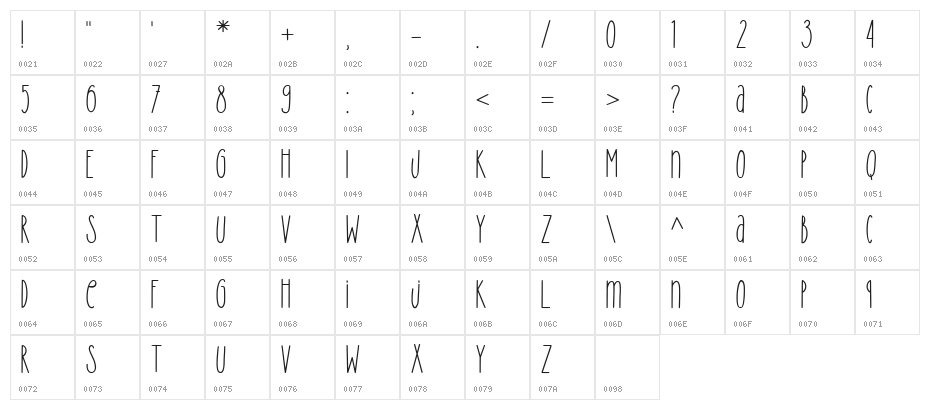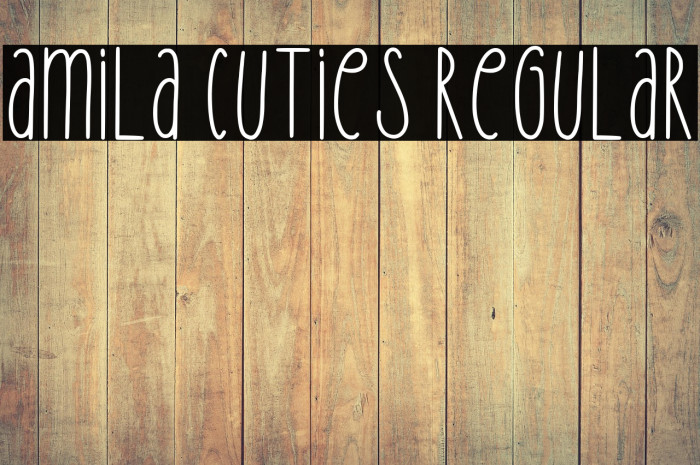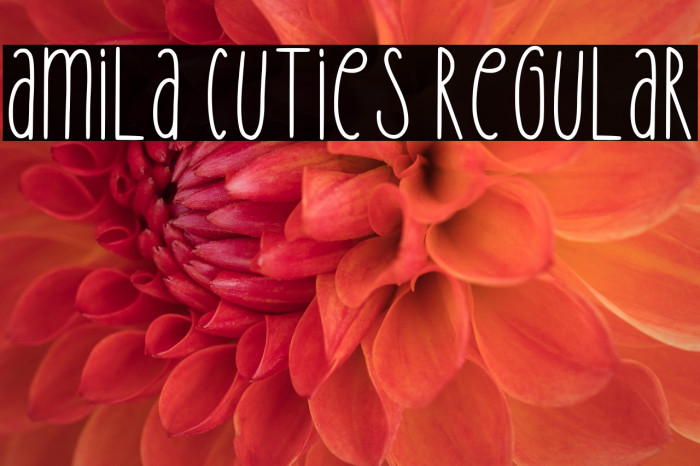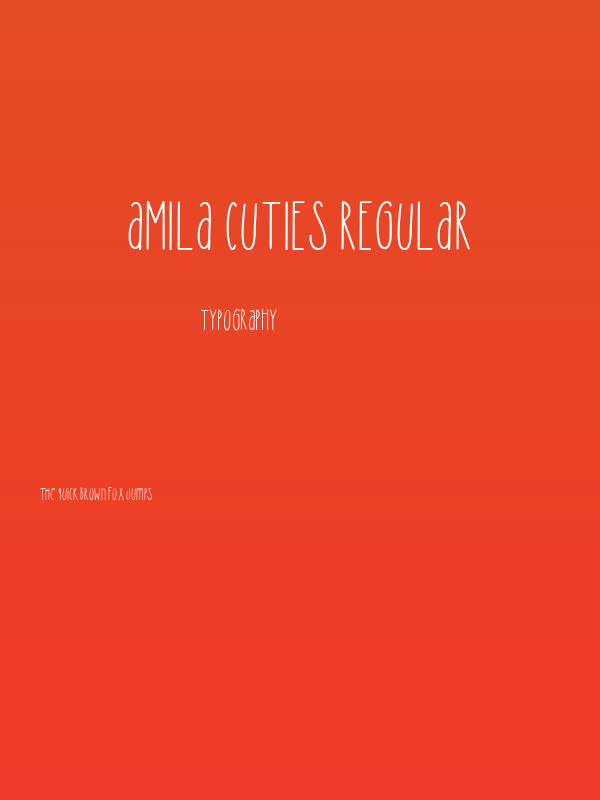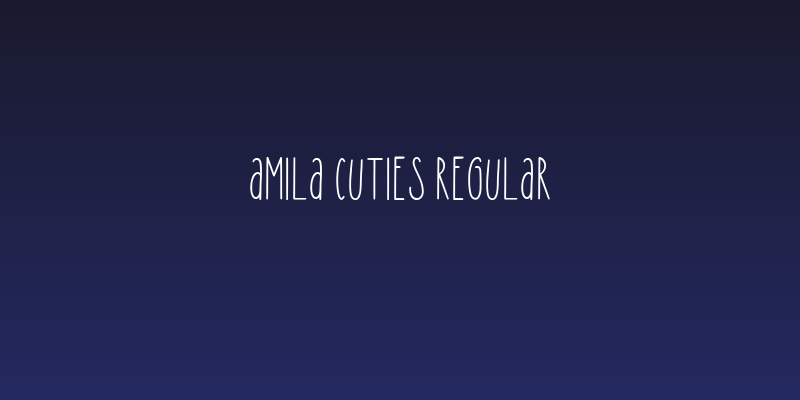
Amila Cuties Regular Font
Amila Cuties Regular Description
A playful, handwritten font with tall, narrow letters and a casual style.
| Use Case | Headlines, Informal text |
| Proposed Projects | Greeting cards, children's books, casual invitations. |